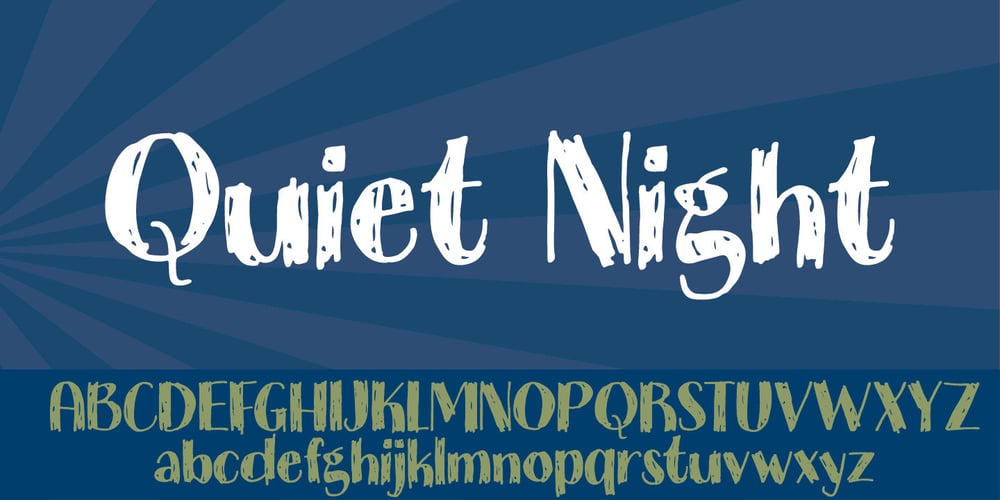
Quiet Night Font Family was designed by Jakob Fischer and published by PizzaDude.dk. Quiet Night contains 1 styles and family package options. Quiet Night is my scribbled art deco font. Despite it’s slightly jumpy and rough apperance, the font is super legible – even at smaller sizes. Comes with ligatures for double letters.